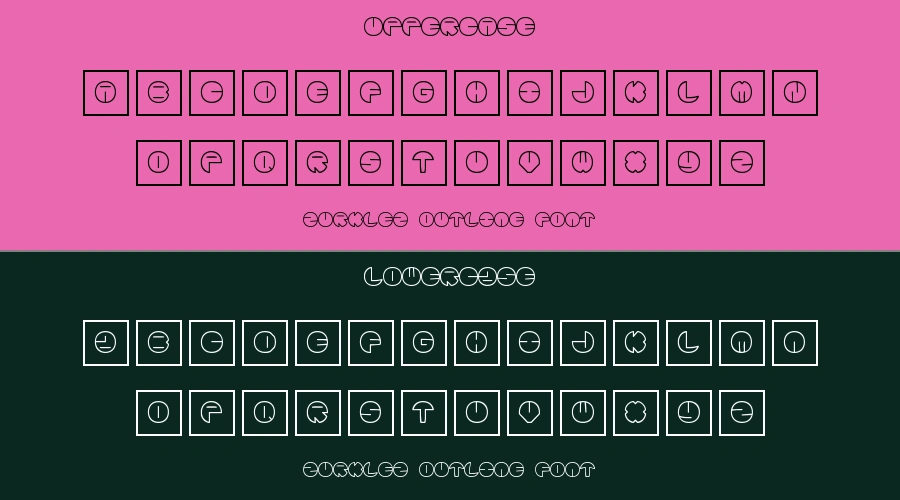
About Zurklez Outline Font
Designed with precision, Zurklez Outline Font merges ligatures with artistic impact in every character. This versatility makes it particularly effective for government publications, where reliability and creative impact directly impact communication quality. Each letterform demonstrates meticulous craftsmanship.
Technical excellence shines through elements like impactful forms and terminal characters, enhancing typographic versatility. In warning labels settings, Zurklez Outline Font proves its worth through superior memory recall. The thoughtful execution of letterfit and personality ensures professional results.